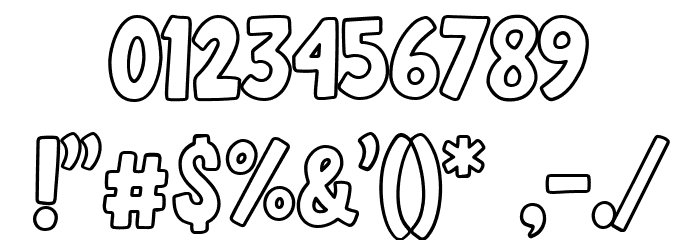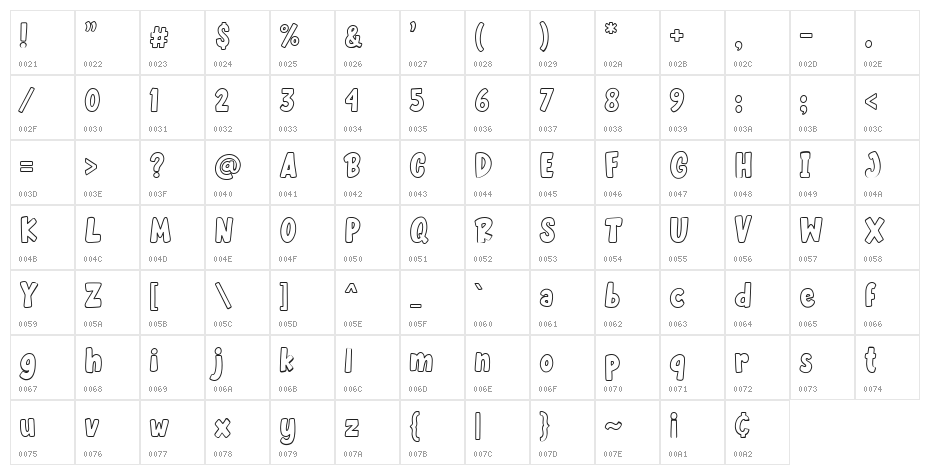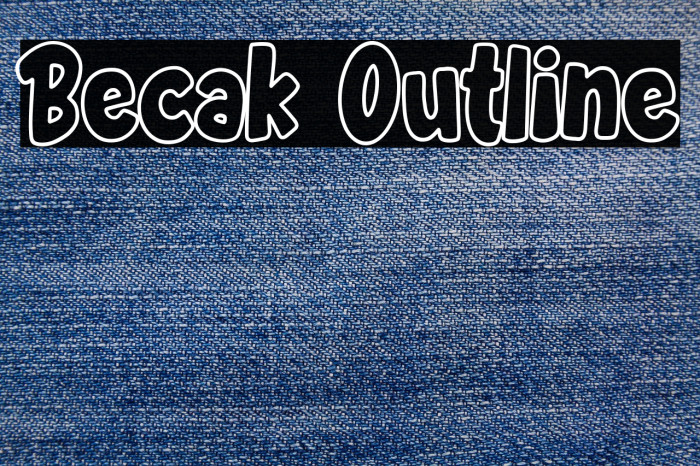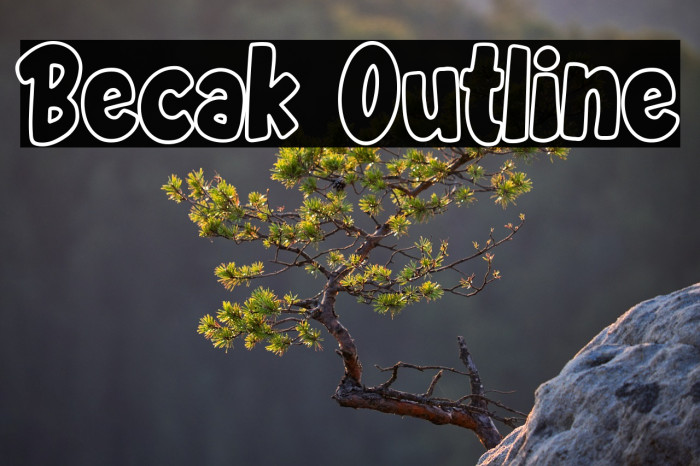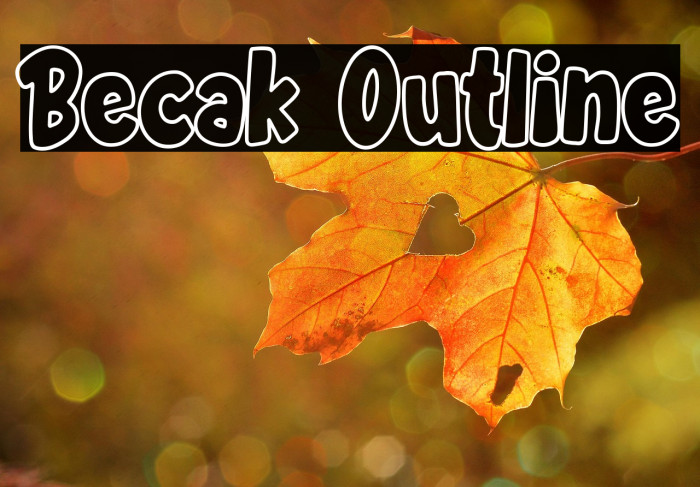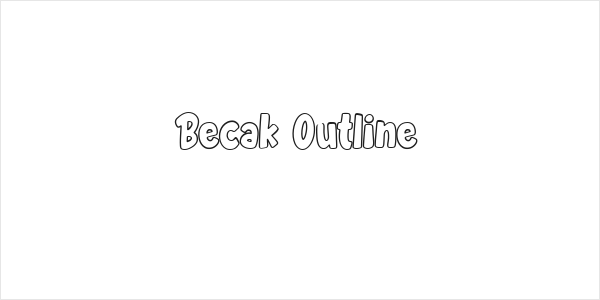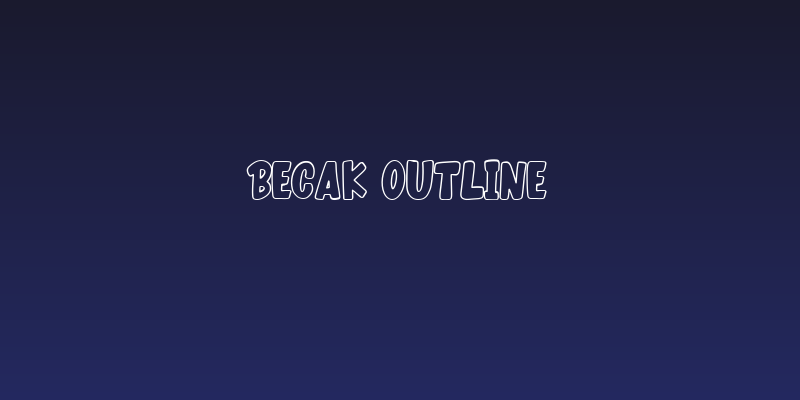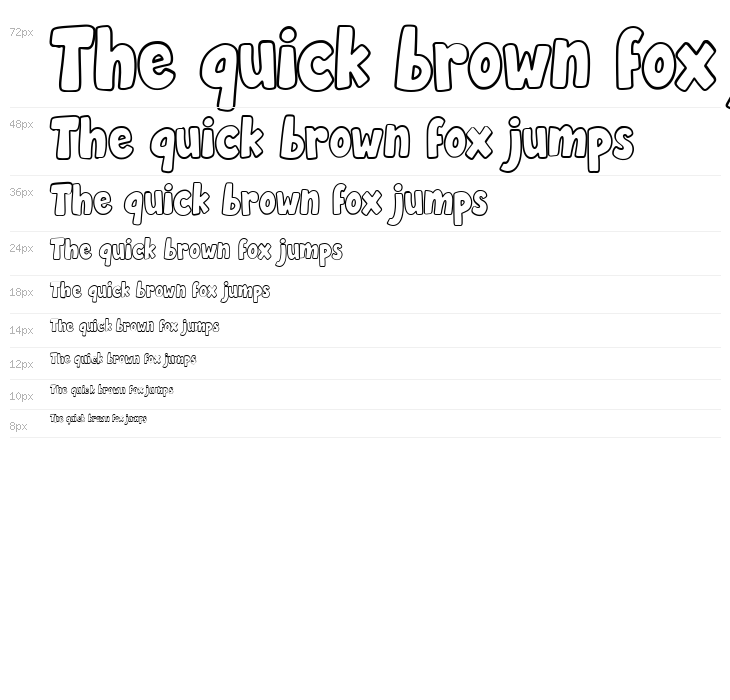
Becak Outline Font
Becak Outline Description
This playful and bold outline font features a cartoonish style with thick, rounded edges. Each character is outlined, creating a hollow effect that adds a sense of fun and creativity. The uppercase and lowercase letters maintain a consistent style, with a slightly exaggerated, bubbly appearance. Numbers and special characters follow the same playful design, making the font versatile for various uses. The overall look is informal and friendly, perfect for projects that require a touch of whimsy and lightheartedness.
| Proposed Projects | Ideal for children's books, comic strips, playful branding, and party invitations. |